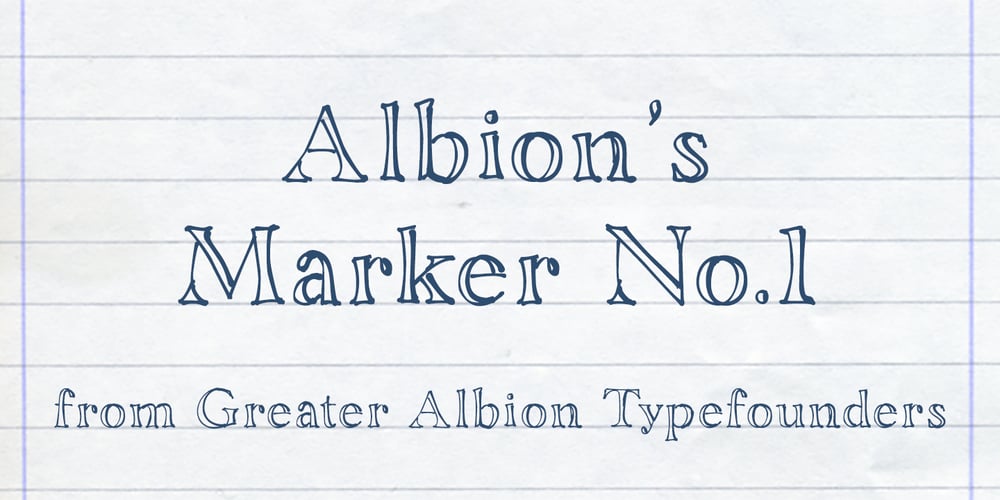
Albion’s Marker No.1 Font Family was designed by Paul James Lloyd and published by Greater Albion Typefounders. Albion’s Marker No.1 contains 1 styles and family package options. Albion’s Marker No.1, as the name suggests is the first in a series of ‘Marker Pen’ typefaces- merging good type design practice with deliberately casual and hand-drawn letter forms. Inspired by the great classic typefaces such as Bembo and Caslon, the design of Marker No.1 offers a unique blend of legibility and relaxed randomness.